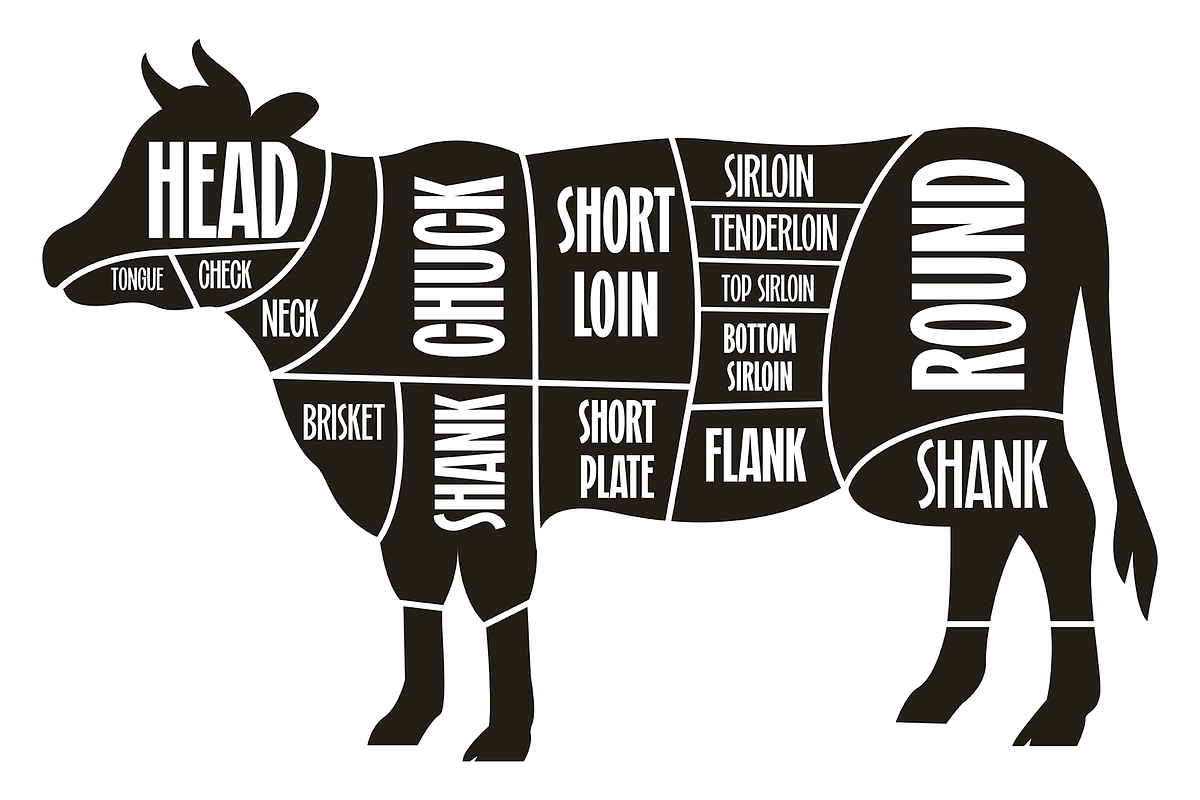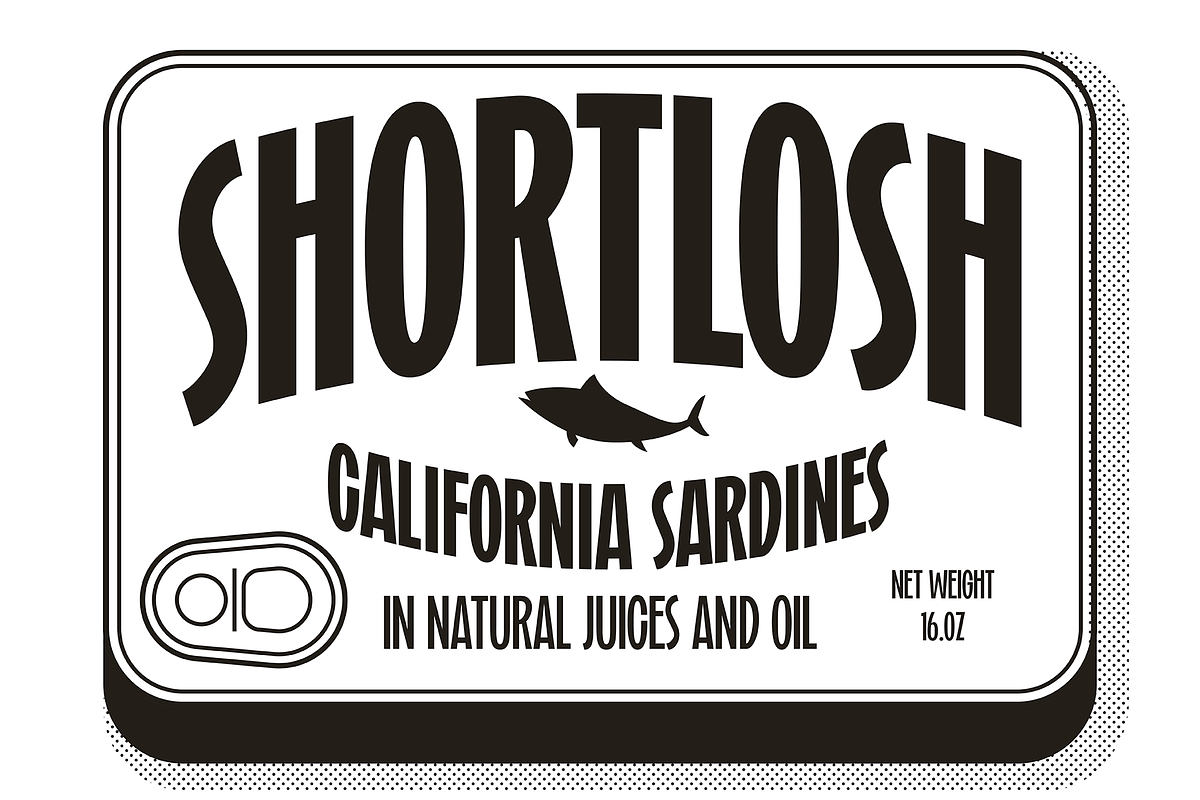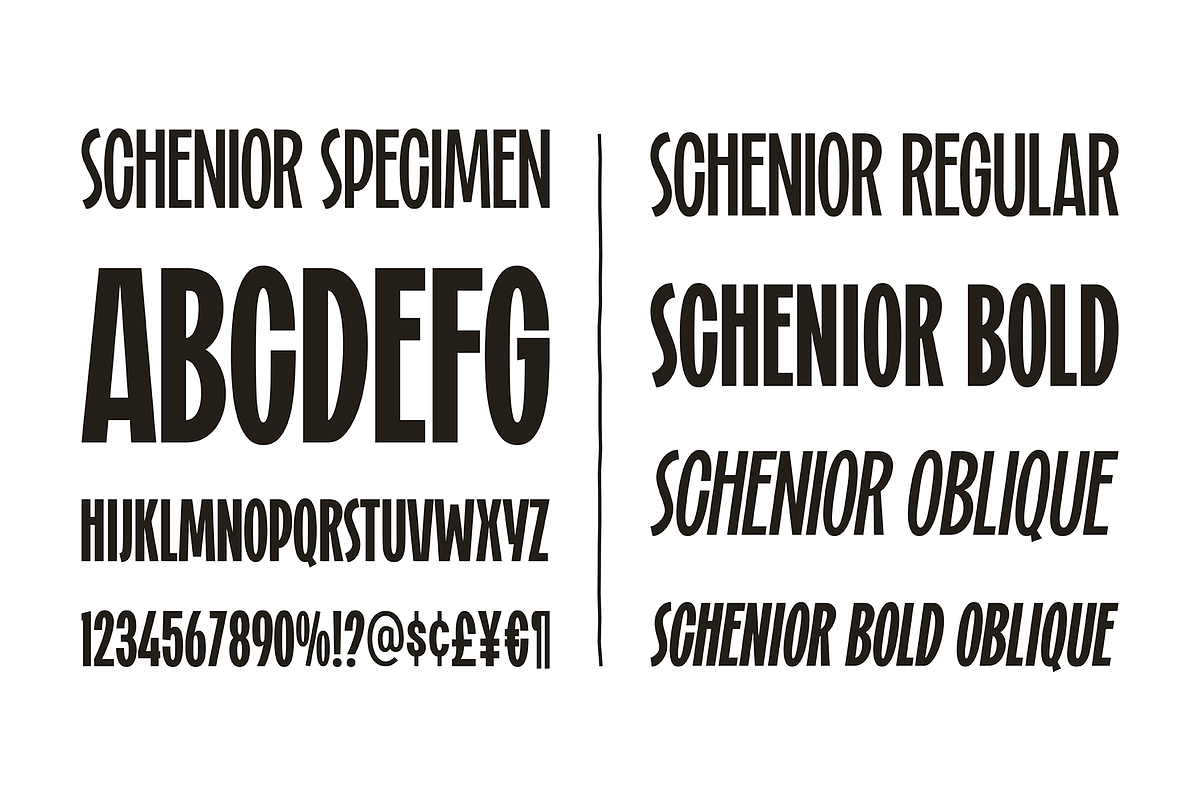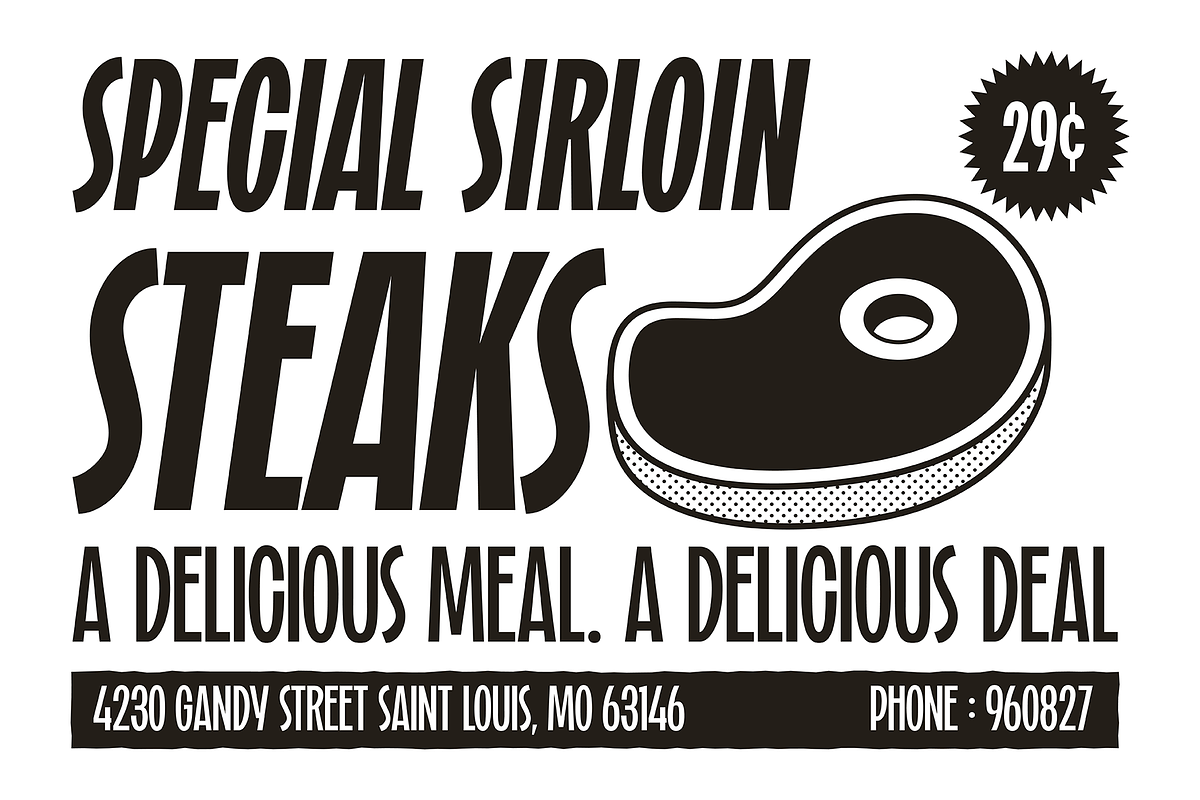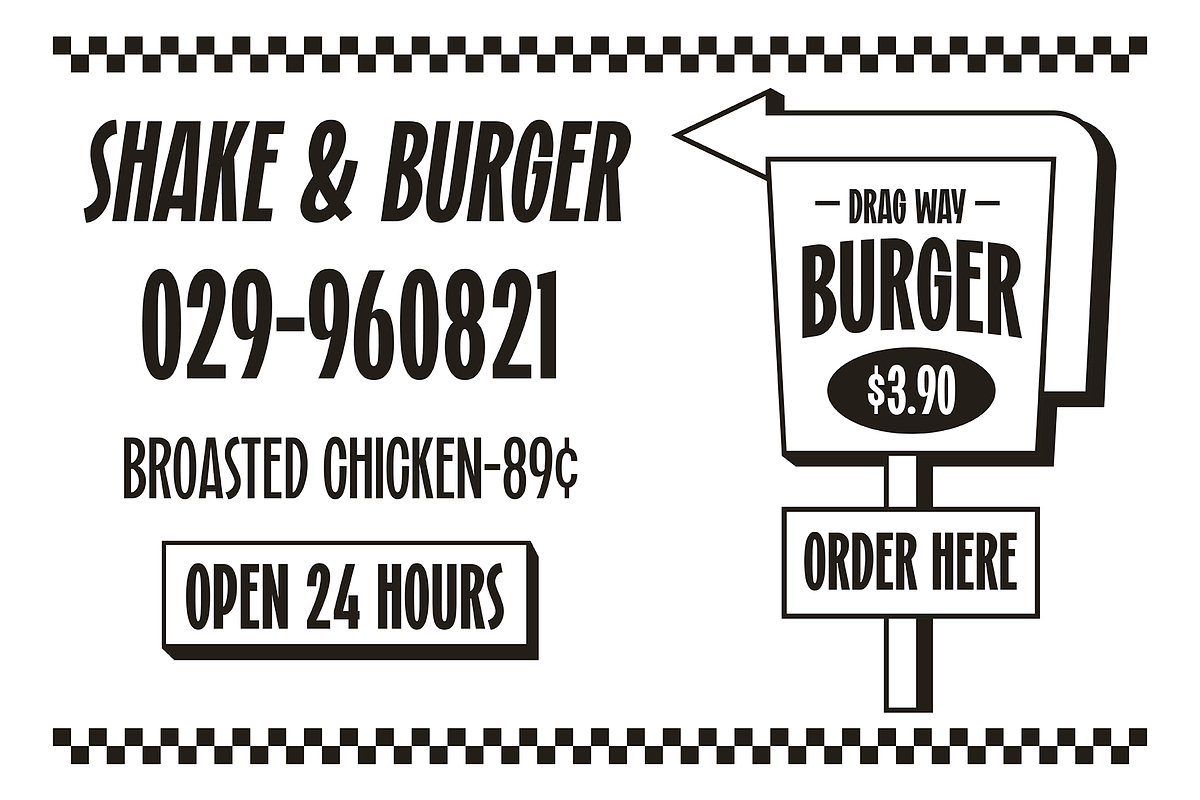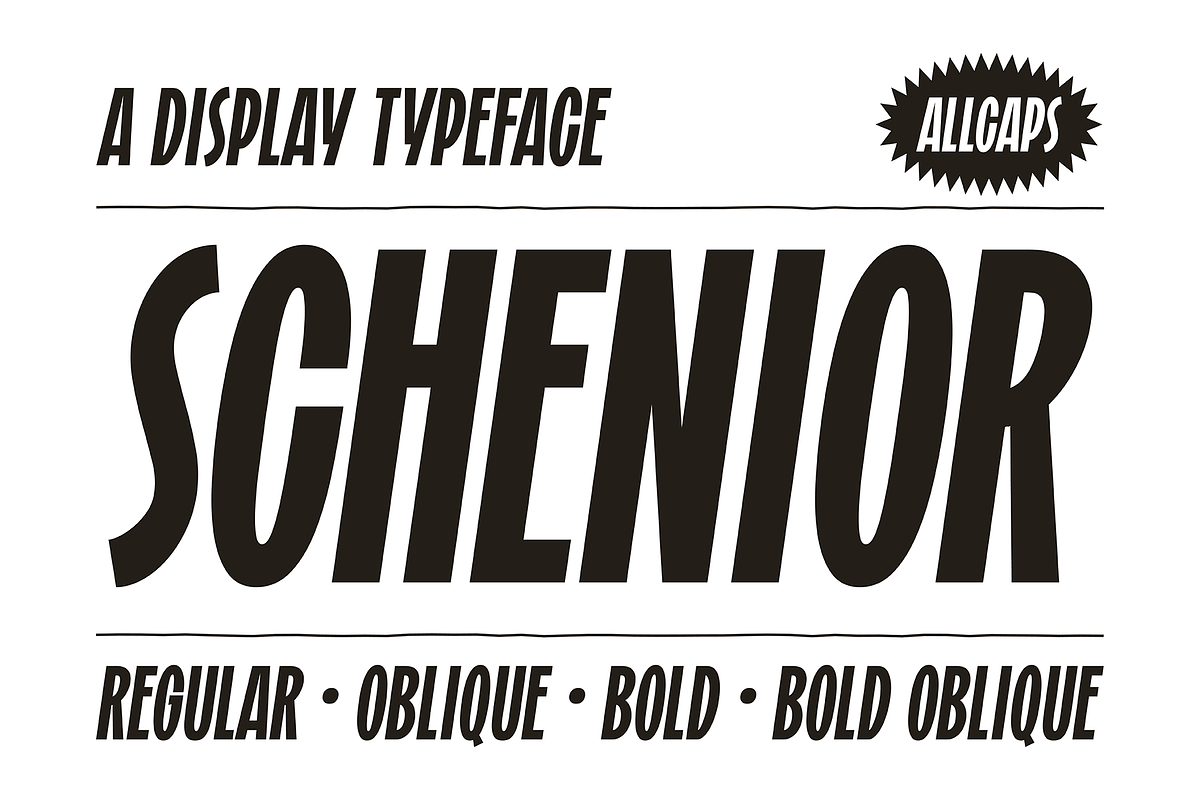
Schenior
SCHENIOR is a display typeface with playful taste. It comes in two different weight and two style, so you can use them to your heart's content. SCHENIOR very suitable to use for headlines, wordmark, prints, logotype, young and playful design or anything else.